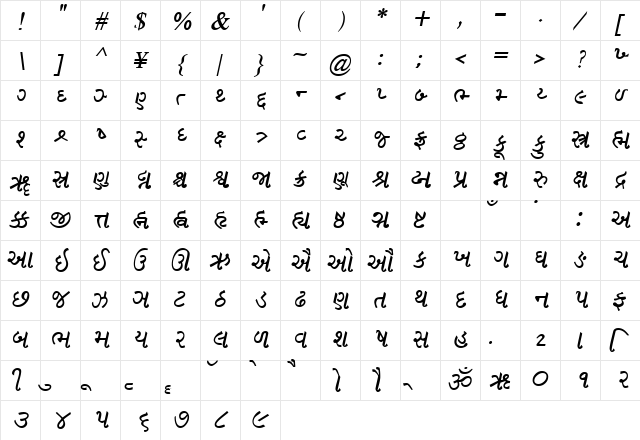
GujaratiRajkotSSK BoldItalic Font Preview
Design Context for GujaratiRajkotSSK Typeface
GujaratiRajkotSSK offers clean, dependable letterforms without strong stylistic allegiance, making it a practical choice for designers who need flexibility. The dynamic lean of this cut emphasises speed and emphasis in any layout. The heavy weight commands attention and anchors typographic hierarchies.
Pro Tip: Try GujaratiRajkotSSK for annotation and caption copy alongside an upright companion — the contrast in angle creates a dynamic but ordered typographic system.